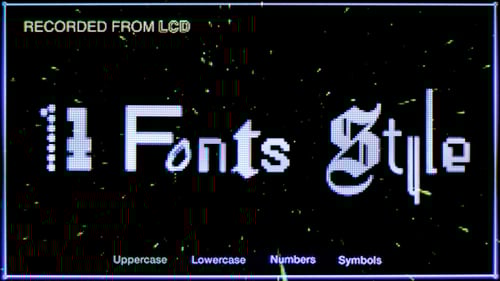
Animated Pixel Font Character Set for Retro Digital Projects
This animated collection features a comprehensive set of pixel fonts, including uppercase and lowercase alphabets, numbers, and symbols. The digital, retro-inspired design emulates the aesthetic of old computer screens with a distinct pixelated look and subtle chromatic aberration effects. Ideal for creating titles, lower thirds, or game interfaces, this asset brings a nostalgic 8-bit vibe to any video project. The characters animate in a clear, legible fashion, suitable for technology-themed content, cyberpunk aesthetics, or vintage-style productions. Easily integrate these ready-to-use pixel elements into your video editing software for a unique, stylized visual impact.